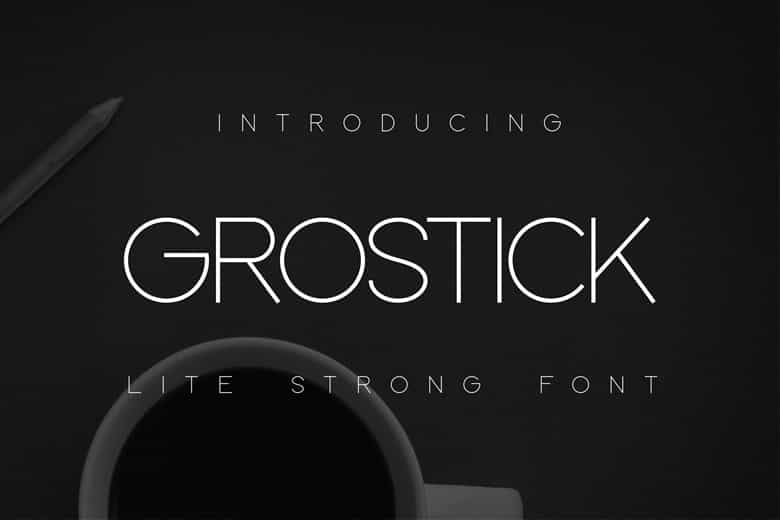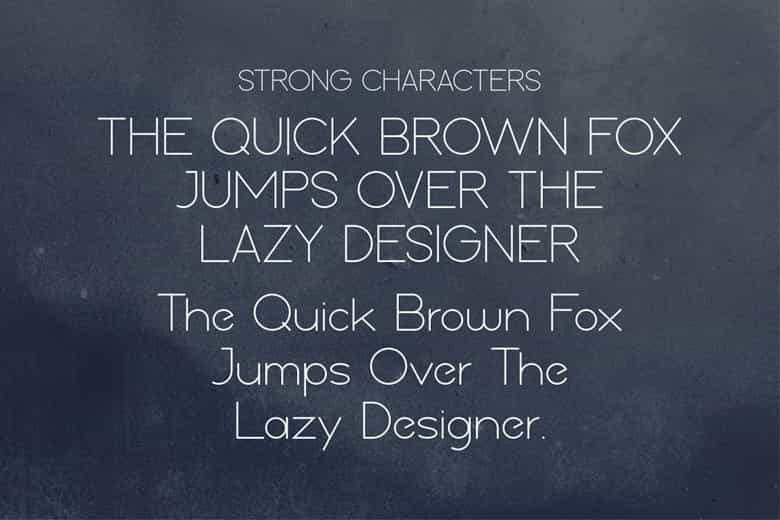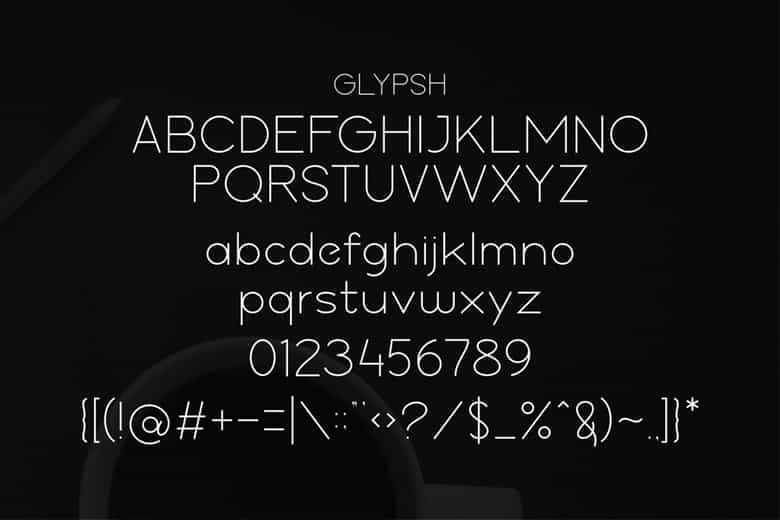
Discover Grostick Font, part of the Sans Serif collection—a versatile and unique font perfect for adding a personal touch to your projects. Download it for free and enjoy crafting designs with style, from invitations to social media posts. This font is available exclusively for personal use, giving you the freedom to create without limits. Unlock your creativity with Grostick Font today!
Grostick is a high-quality and thoroughly stylized font of the sans-serif type. It is suitable for usual designs like a book cover, magazine, post on social networks, invitation, and much more!